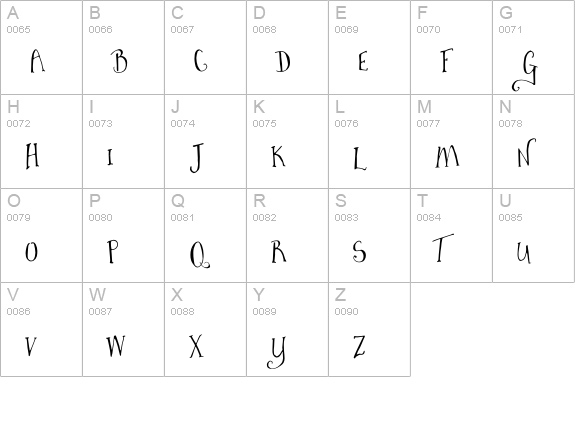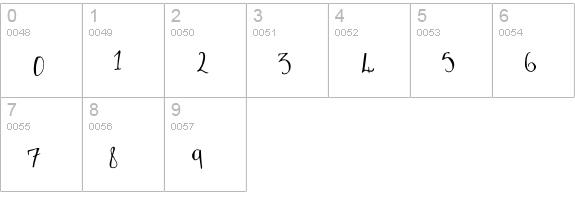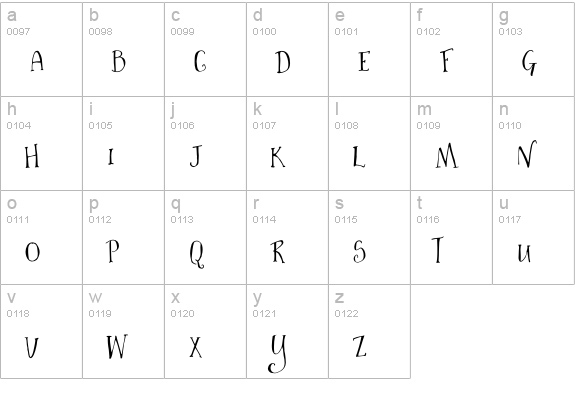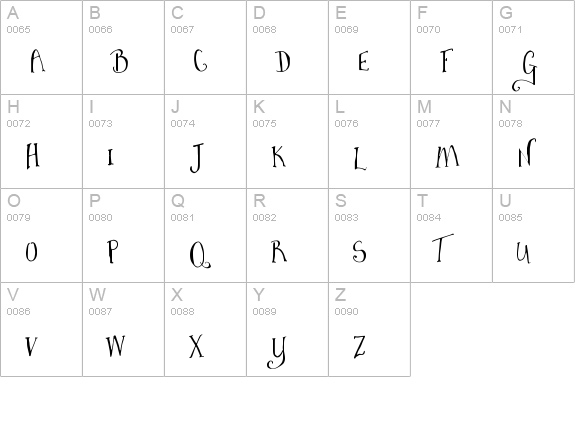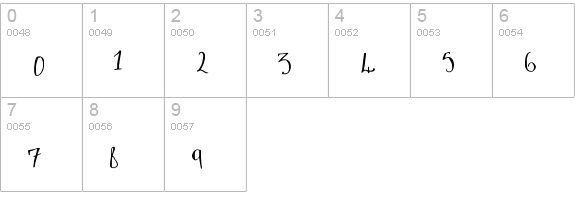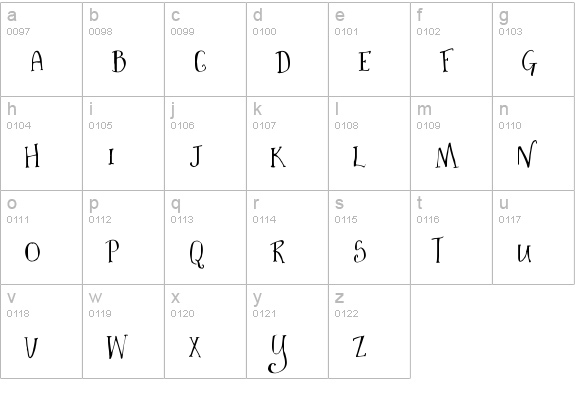
VanillaFrosting Regular Font Details
VanillaFrosting Regular is the standard, neutral variant in the VanillaFrosting typeface family \xE2\x80\x94 well suited to general body text, paragraphs, and standard typographic work.
VanillaFrosting Regular is a delightful and charming font that exudes a sense of whimsy and elegance. Its soft curves and delicate strokes make it perfect for adding a touch of sweetness to any design project. Whether you're creating invitations, greeting cards, or branding materials, VanillaFrosting Regular is sure to make a lasting impression. The best part? This beautiful font is available for free download at FontsMarket.com. Simply visit the website and start using VanillaFrosting Regular in your projects today. Embrace the beauty and versatility of this font and let your creativity shine with every letter you write.